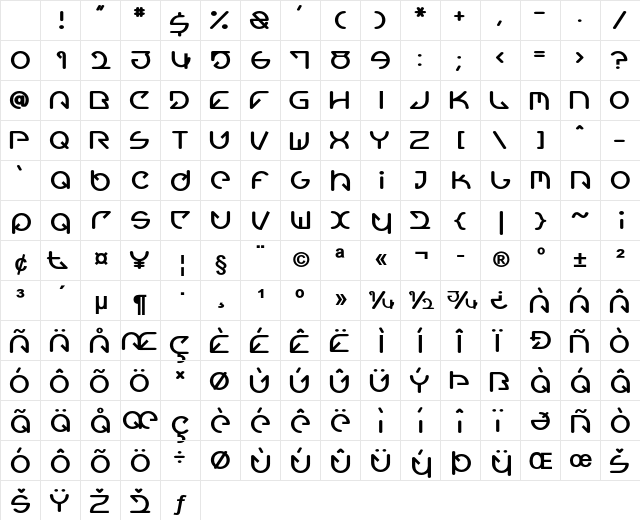
Auritra is a composed and adaptable typeface that performs quietly and consistently across a wide range of design contexts. Its bold stroke weight gives it real presence on the page.